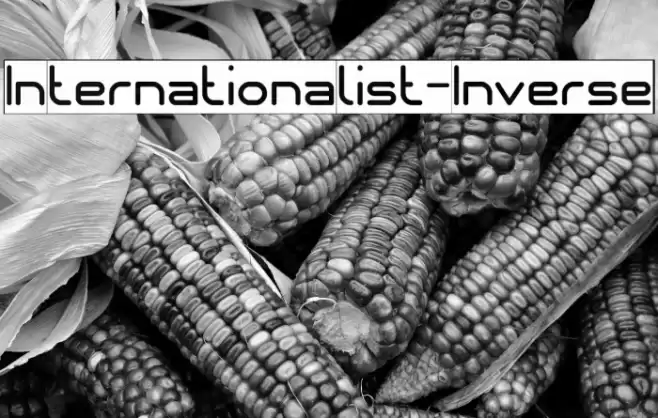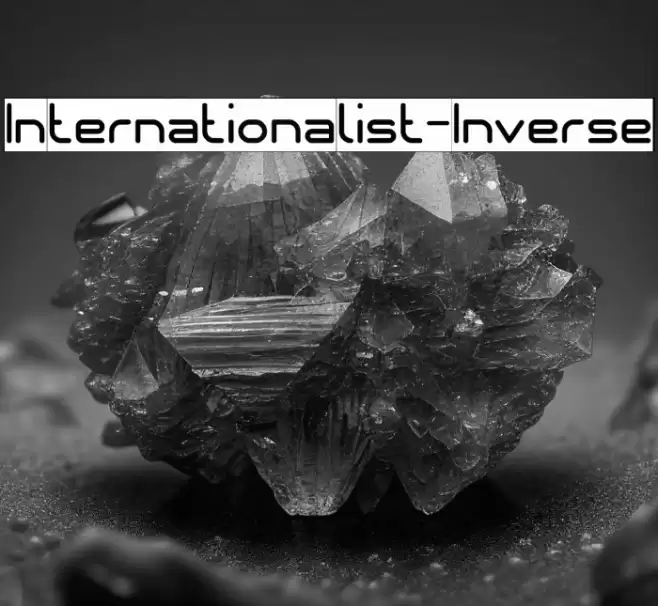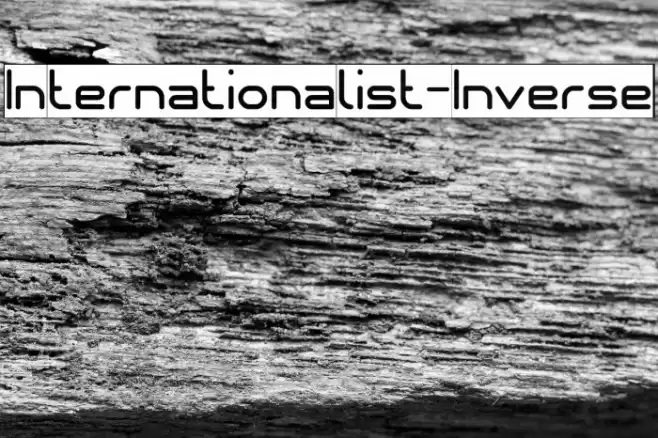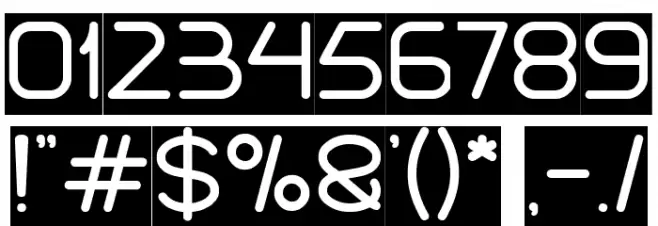
Internationalist-Inverse Font
Internationalist-Inverse Description
This font features a modern, geometric design with a futuristic flair. The characters are composed of clean, rounded lines that create a sense of openness and clarity. The uppercase letters maintain a uniform height, while the lowercase letters have a consistent x-height, contributing to a harmonious appearance. The numerals are distinct and align well with the overall style, ensuring readability. Special characters are designed to match the sleek aesthetic, making this font versatile for various applications. Its contemporary look is ideal for projects that require a forward-thinking and innovative touch.
A modern, geometric font with rounded lines and a futuristic style from Uncategorized fonts.
- Proposed Projects: Ideal for technology branding, modern advertising, digital interfaces, and innovative product packaging.
- Use Case: Headlines, Logos, Digital interfaces